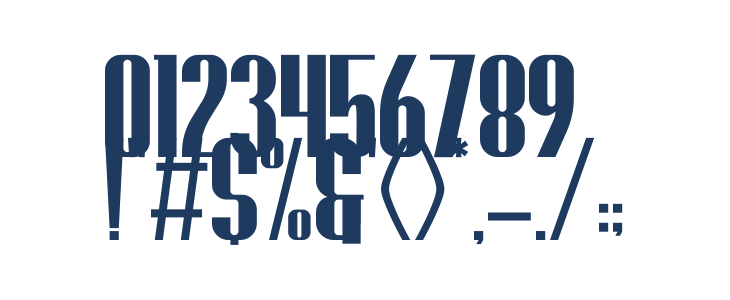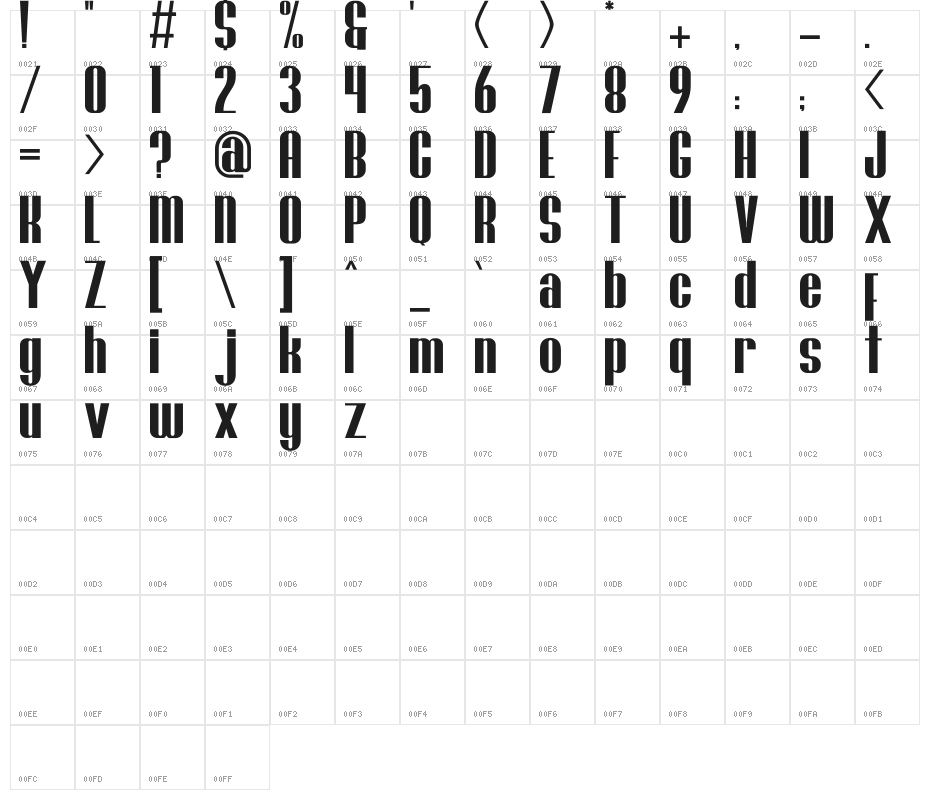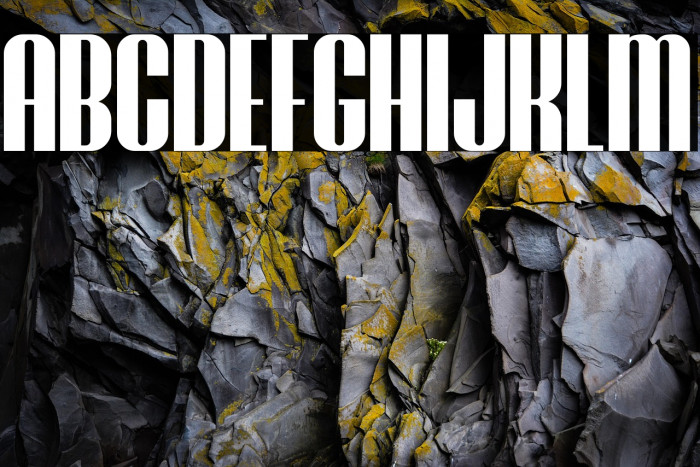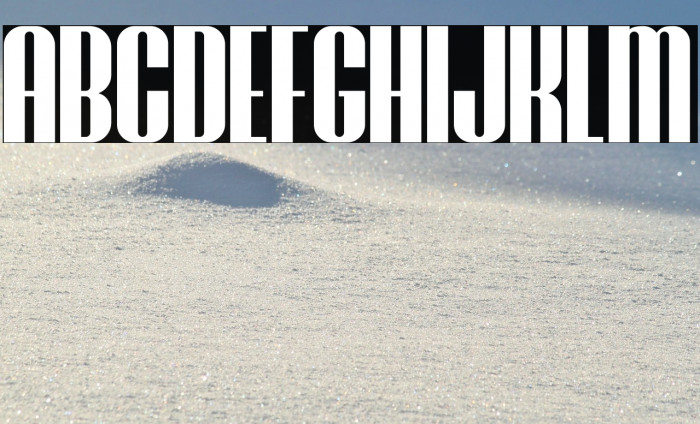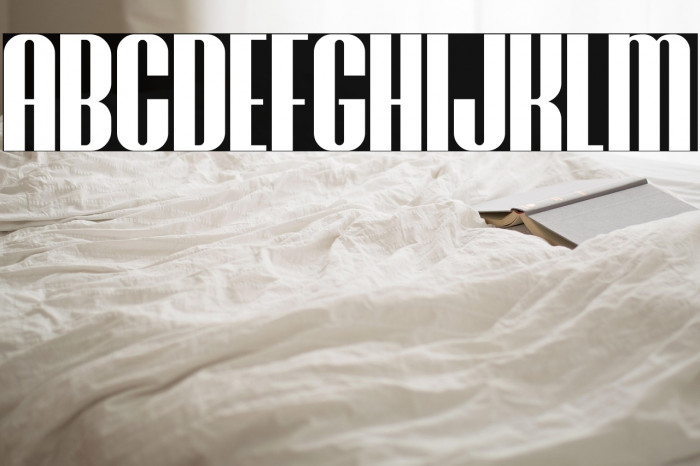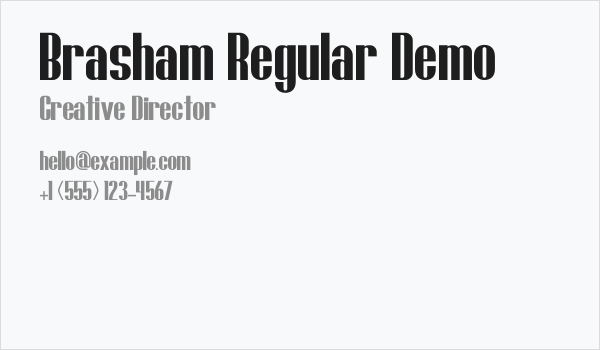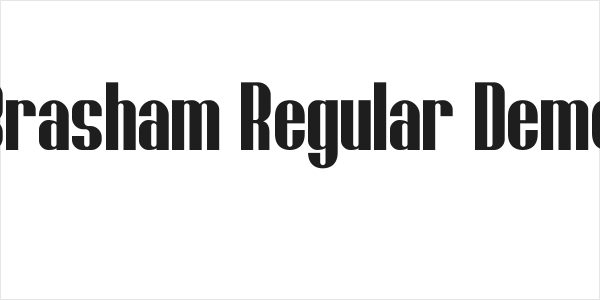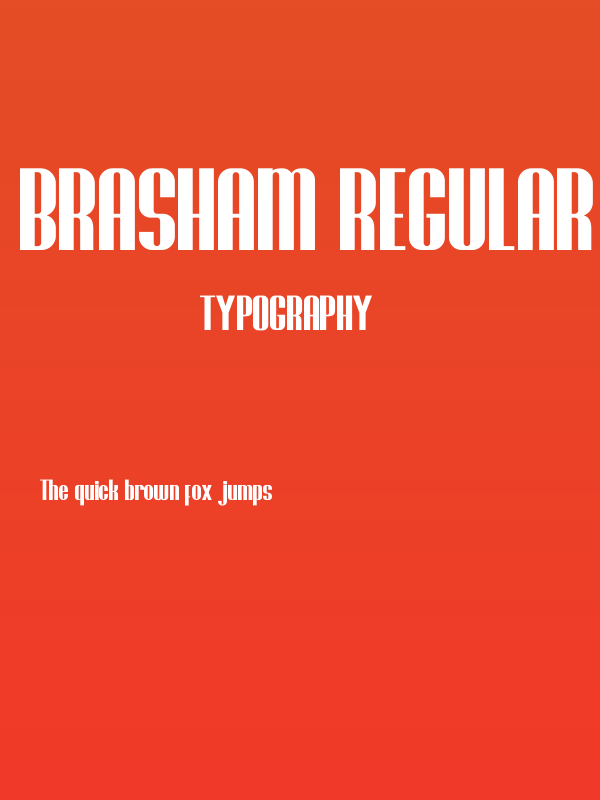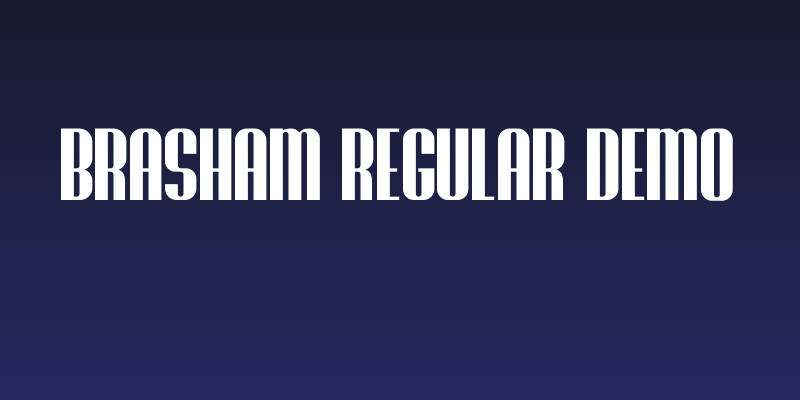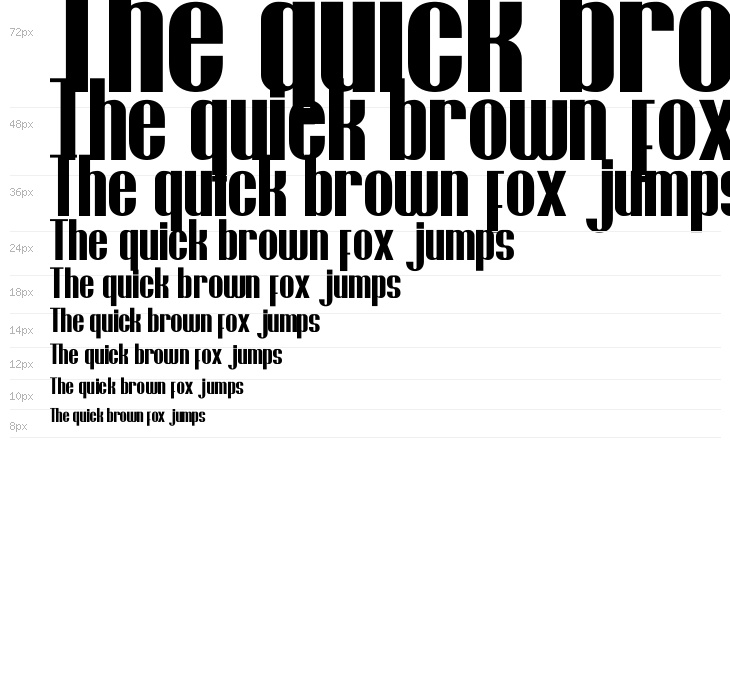
Brasham Regular Demo Font
Brasham Regular Demo Description
This font features a bold and impactful design with tall, narrow characters that convey a sense of strength and modernity. The uppercase letters are particularly striking, with a consistent height and strong vertical lines that dominate the design. The lowercase letters maintain the same boldness, offering a cohesive look across different text cases. Numbers are equally bold, ensuring they stand out in any context. Special characters are designed with the same attention to detail, providing a complete and versatile character set. The overall style is modern and assertive, making it suitable for projects that require a strong visual impact.
| Proposed Projects | Ideal for branding, headlines, posters, and any design requiring a strong, modern aesthetic. |